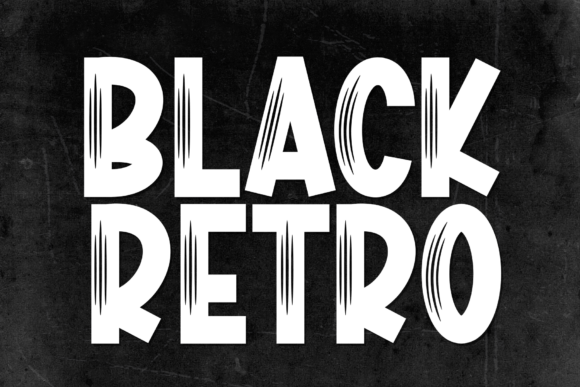
The Perfect Blend of Vintage Charm and Dynamic Energy
As designers, we’ve all had those moments when we’re brainstorming ideas and suddenly, a burst of inspiration hits. For some, it might be a favorite childhood comic book or a vintage sign that sparks creativity. For me, it’s the nostalgic thrill of flipping through old records or browsing through a thrift store. Whatever the trigger, the result is often a desire to tap into that retro aesthetic and infuse it with a modern twist. Enter the Black Retro Font, a bold display font that masterfully fuses vintage charm with dynamic energy.
With its thick, blocky letterforms and dramatic inner line shading, the Black Retro Font is perfect for projects that need a loud and playful touch. Whether you’re designing posters, t-shirts, or branding materials, this font is sure to command attention and add a touch of personality to your work. Its versatility and high contrast make it a valuable asset for designers looking to add a retro edge to their designs.
Key Features of Black Retro Font
- Font Family: Black Retro Font is a display font with a unique, distressed aesthetic.
- Unique Characteristics: Black Retro Font features a distressed, retro aesthetic with a bold, black design that evokes a sense of nostalgia and vintage charm.
- Style: The font includes 5 different styles: Regular, Italic, Bold, Bold Italic, and Outline, offering a range of design options.
Designer Review: Black Retro Font
Black Retro Font is an interesting choice for designers looking to add a vintage touch to their projects. Here are some of its notable features: ✨
- Unique aesthetic: The font has a distinctive, retro vibe that can instantly transport your audience to a bygone era.
- High contrast: The font’s black color on a light background creates a high contrast that makes it highly legible.
- Various font styles: The font comes in different weights, from light to bold, allowing for flexibility in design.
However, Black Retro Font also has some limitations that designers should be aware of: ⚠️
- Limited versatility: While the font is great for retro-themed projects, it may not be suitable for modern or minimalist designs.
- No clear font history: The font’s origins and inspiration are unclear, which may make it difficult to use in certain contexts.
- Potential overuse: The font’s retro aesthetic may become overused if designers rely too heavily on it.
Overall, Black Retro Font is a solid choice for designers who want to add a touch of nostalgia to their projects. While it has its limitations, it’s a great option for those who can appreciate its unique aesthetic. Just be sure to use it thoughtfully and balance it with other design elements to avoid overuse.
Use the Black Retro Font to add a nostalgic touch to your designs.
Pair it with bold colors and geometric shapes for a retro-inspired look.
Experiment with different font sizes and styles to create a visually appealing design.
The Black Retro Font is perfect for:
Designing posters and flyers for music events or vintage-themed parties.
Creating retro-inspired social media graphics and ads.
Adding a nostalgic touch to business cards and branding materials.
Alternative Fonts to Black Retro Font
Great Vibes is a modern script font with a relaxed, casual feel. It’s perfect for creating a laid-back atmosphere and is often used for headings and titles. Great Vibes has a more refined and elegant look compared to Black Retro Font, which is bolder and more distressed.
Pacifico is a beautiful script font with a soft, elegant feel. It’s ideal for creating a sophisticated and luxurious atmosphere and is often used for headings, titles, and body text. Pacifico has a more refined and polished look compared to Black Retro Font, which is bolder and more distressed.